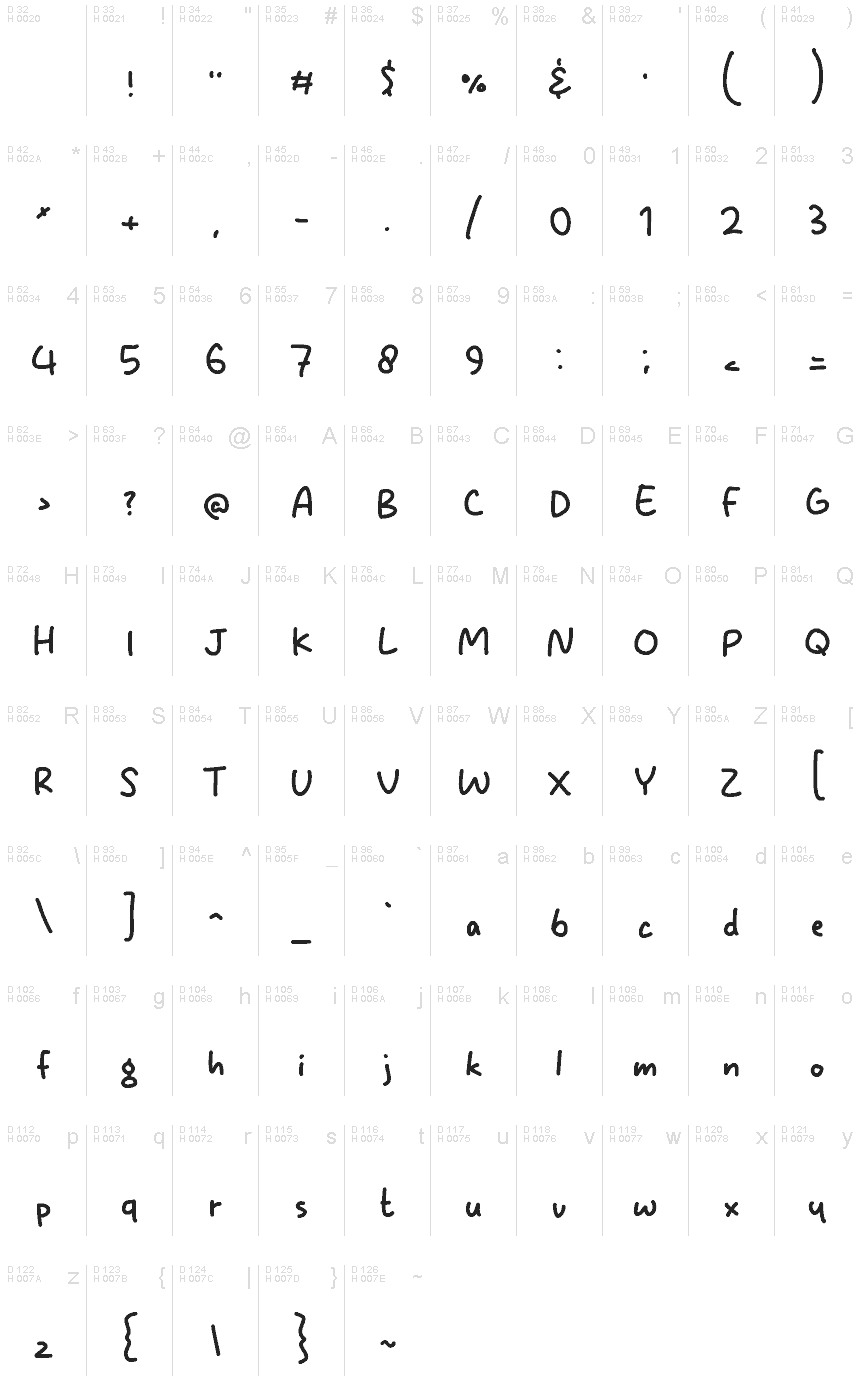
Strange Apple
Strange Apple font by MJType is the perfect mix of quirkiness and modern style. Each character appears to be handwritten, granting a casual vibe that feels approachable. Slightly rounded edges make this one an eye-pleaser and much less intense than other text fonts.
Materials that can benefit from this free handwritten font will cover product packaging designs, product labels, book covers, posters, invitation cards, title tags, web or app titles, quotes, branding projects like logos or adverts. Such file is also fitting to go in banners and social media posts.